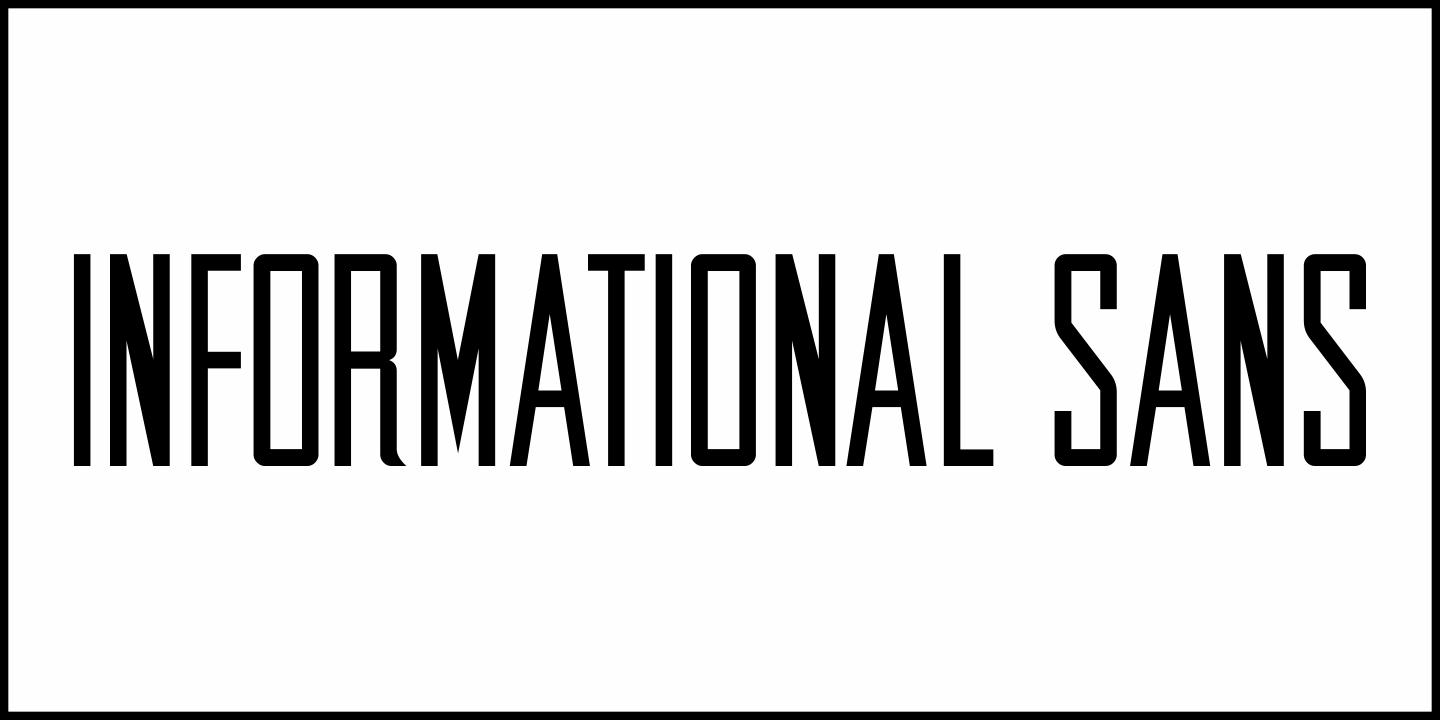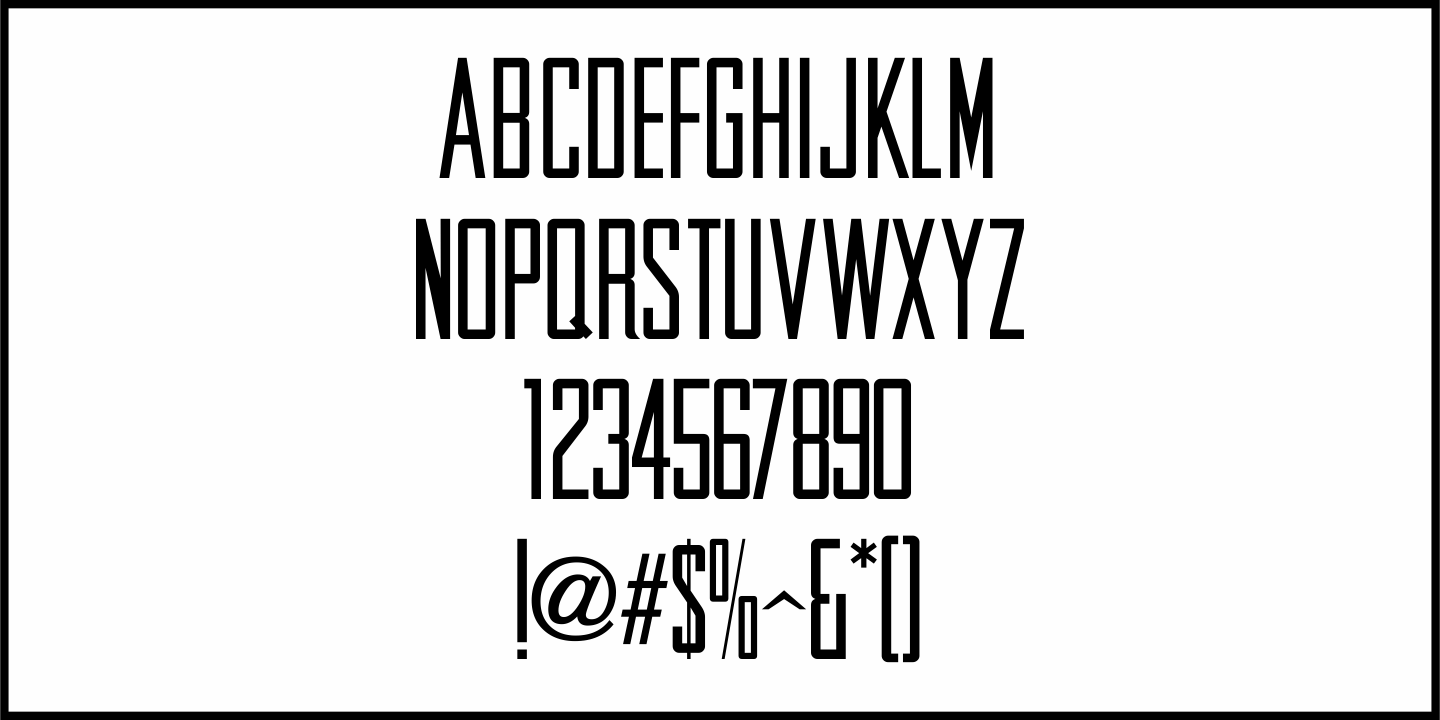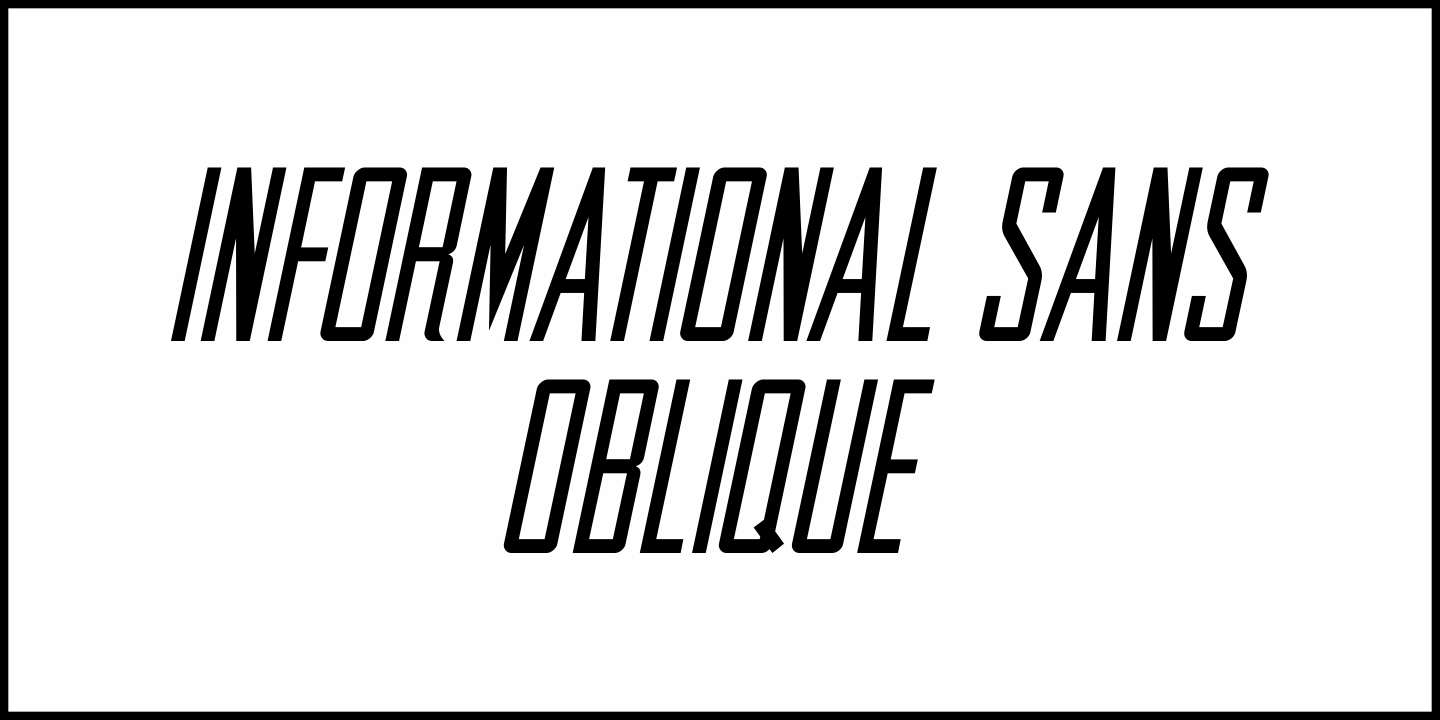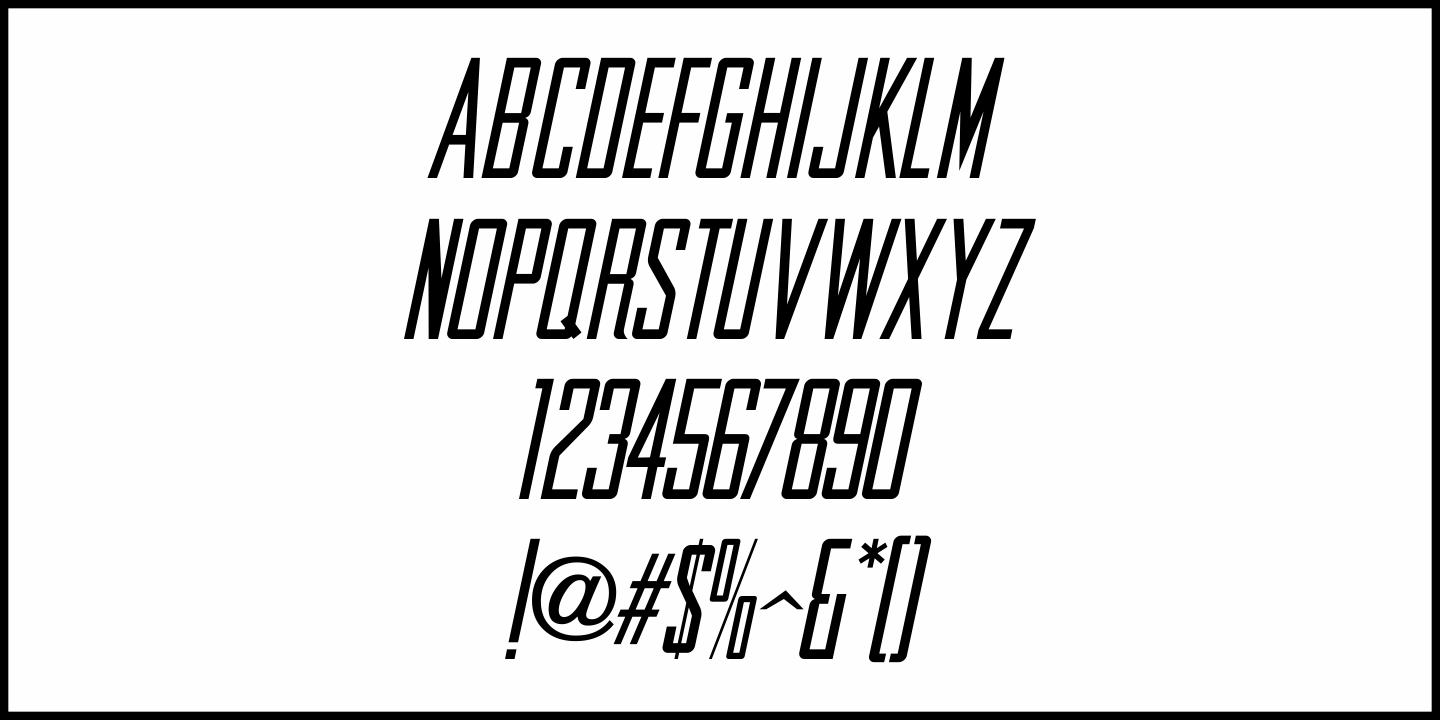
Informational Sans
Featuring condensed, block hand lettering, Informational Sans JNL was modeled from a selection of water applied sign decals once made by the Duro Decal Company of Chicago and is available in both regular and oblique versions.
About fifty different small decal signs covered a wide range of general purpose information such as “Open”, Closed”, “Please Pay When Served”, etc.